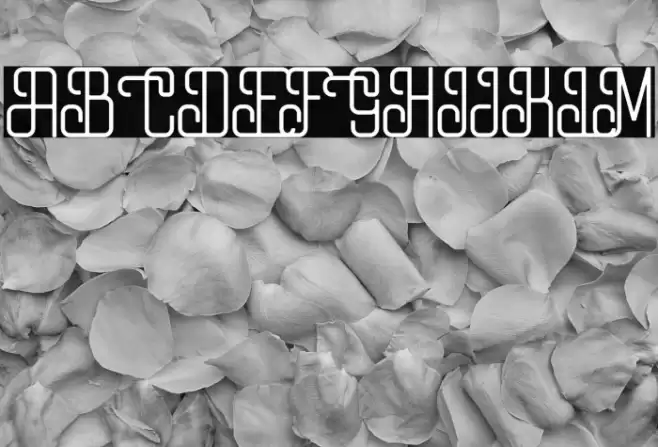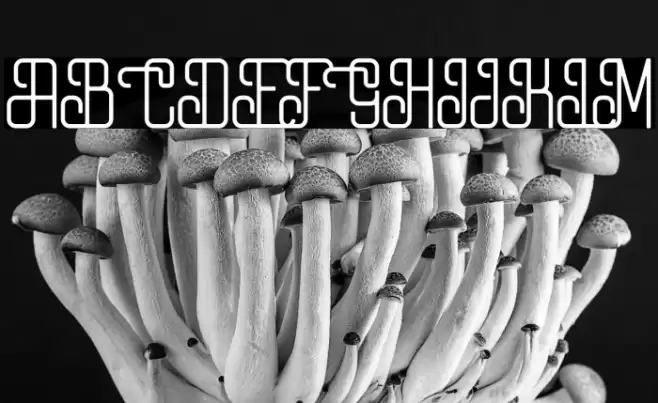
Hijri Font
Hijri Description
This font features a unique and intricate design with a continuous line style that creates a sense of connectivity and flow. Each character is crafted with loops and curves, giving it a decorative and artistic appearance. The uppercase letters are bold and structured, while the lowercase letters maintain a consistent style with a slightly more delicate touch. The numbers and special characters follow the same design principles, ensuring uniformity across the font. This font is ideal for projects that require a creative and modern aesthetic, making it suitable for branding, posters, and artistic displays.
A decorative font with continuous line style and intricate loops from Uncategorized fonts.
- Proposed Projects: Ideal for branding, posters, artistic displays, and creative projects.
- Use Case: Logos, Headlines, Artistic Displays